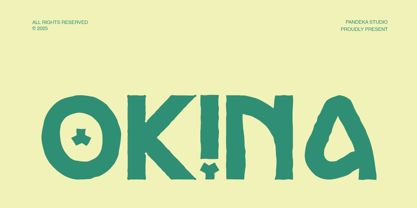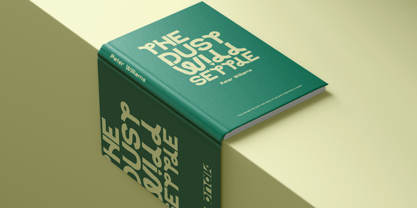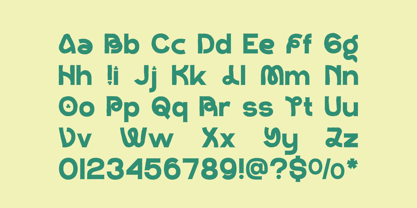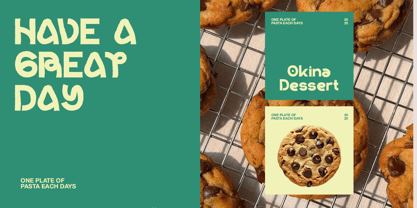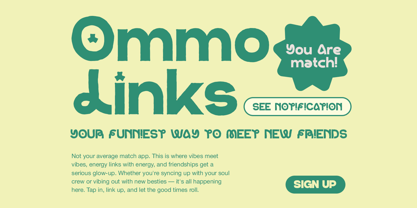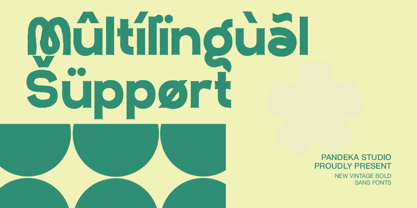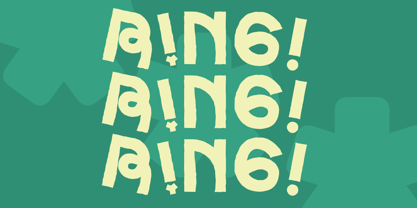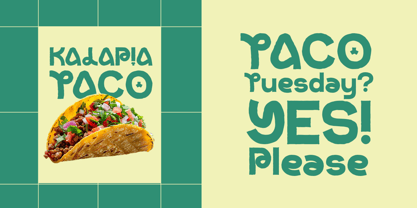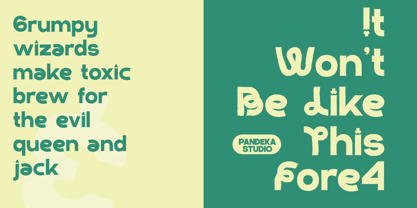
Okina
Okina is a bold and playful food-themed display font designed to bring flavor and fun to your creative projects. With chunky letterforms, rounded details, and quirky charm, Okina captures the joyful essence of friendly branding and tasty visual storytelling.
This font is perfect for restaurant logos, packaging, menus, social media, posters, and food-related campaigns that need a punch of personality. It combines retro curves with contemporary boldness to create a look that’s both appetizing and stylish.
Okina Regular includes a complete character set plus 22+ ligatures & alternates and advanced OpenType features, allowing expressive typographic combinations and custom headline treatments that make your food branding stand out.
Whether you’re crafting a dessert brand identity, a quirky café logo, or fun promotional packaging, Okina delivers a delicious balance of creativity and confidence, making every word look good enough to eat.